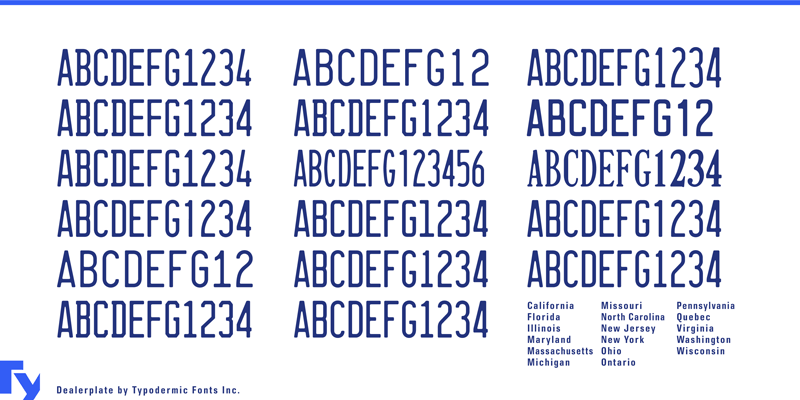
Dealerplate is a series of 17 fonts based on various embossed license plates in the United States and Canada. Most Dealerplate fonts feature the most recent embossed style as of 2019. To get a more authentic monospaced look, try turning off kerning. Almost all current Latin based languages are supported, including Vietnamese, Cyrillic languages and Greek. The commercial use desktop license for Dealerplate California is free. This font includes a license that allows free commercial use: sometimes referred to as a desktop license. This allows you to install the font on a computer and use it to create posters, web graphics, game graphics, t-shirts, videos, signs, logos and more. Read the license agreement for details. If you'd like to embed this font in an app, ebook, on the web or anything that's not covered by the desktop license agreement, visit the link below. You'll find distributors who offer different types of licenses or you can contact me for help. http://typodermicfonts.com/dealerplate/ This free font is part of a larger font family. Check out the rest of the family through the link above. |